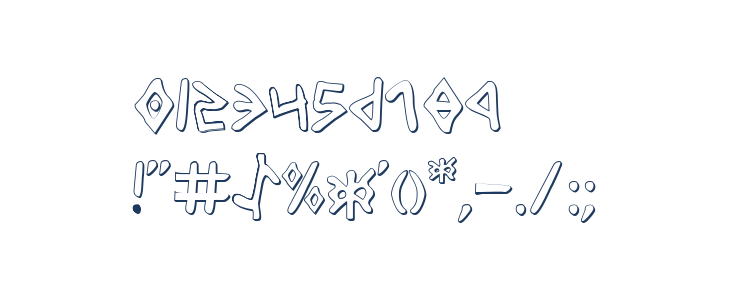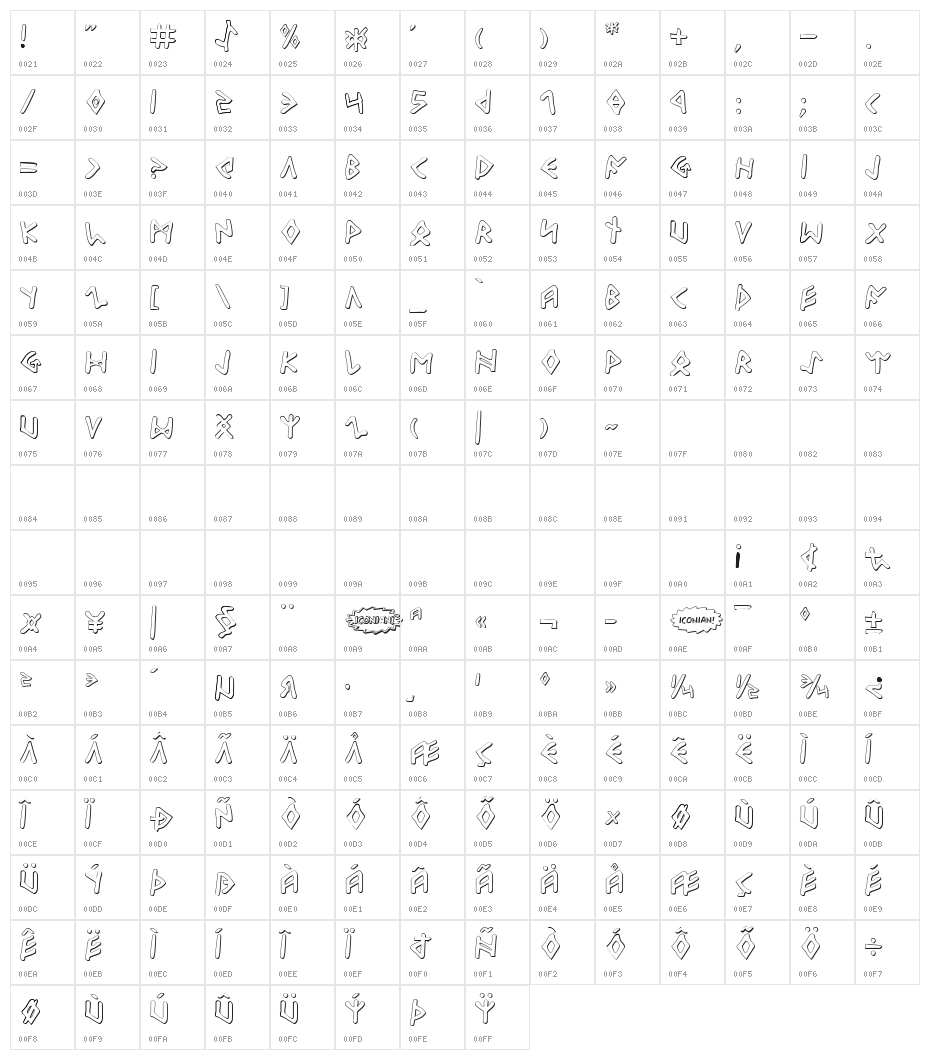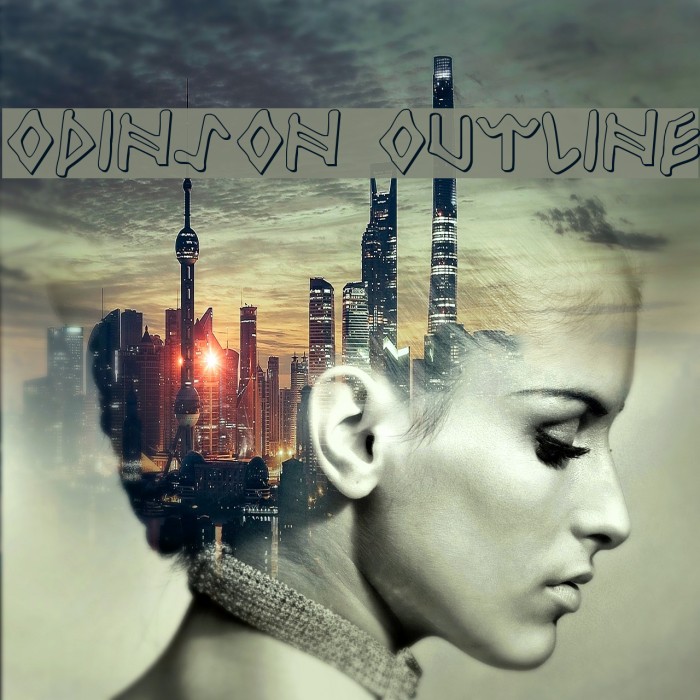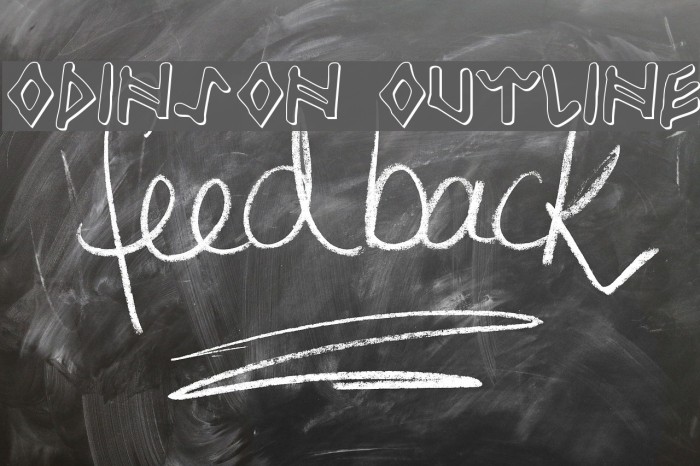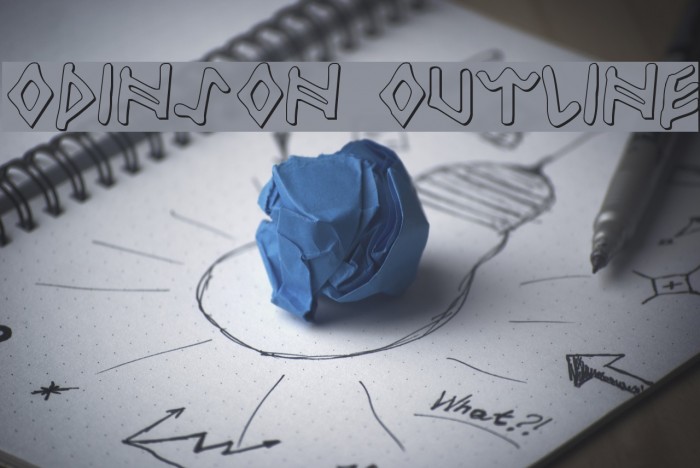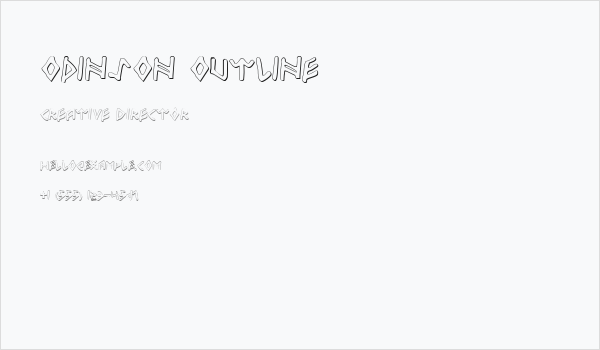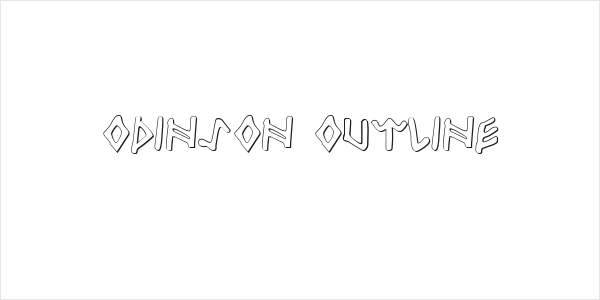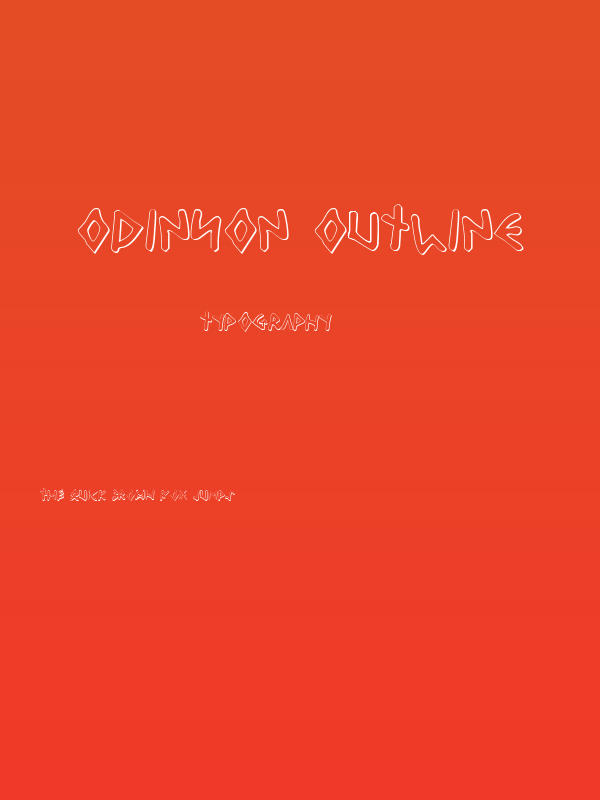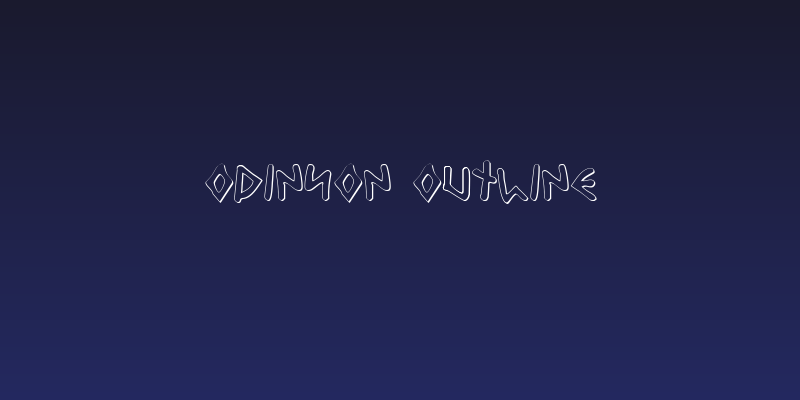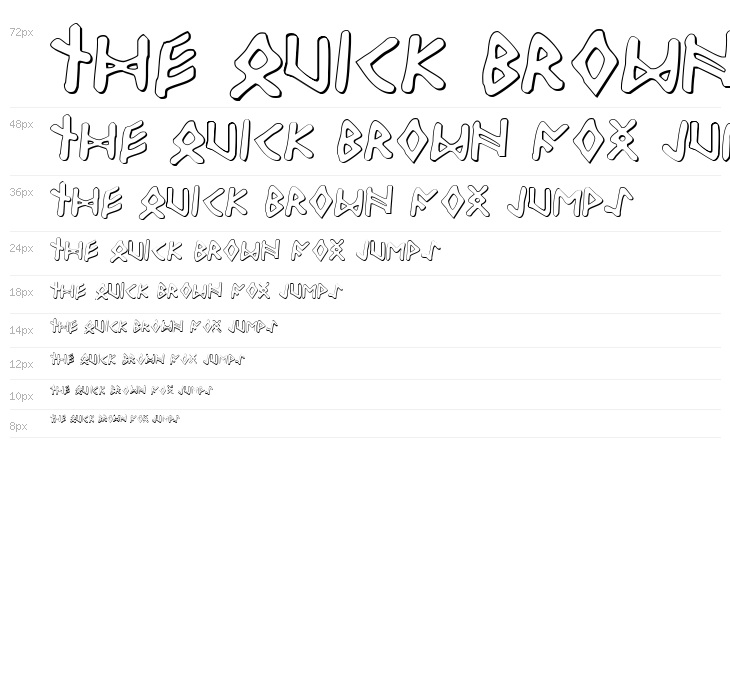
Odinson Outline Font
Odinson Outline Description
This font features a bold and striking outline style, reminiscent of ancient runic inscriptions. The characters are uniquely angular and geometric, creating a sense of strength and mystery. Each letter is outlined, giving it a three-dimensional appearance that stands out on any page. The uppercase and lowercase letters maintain a consistent style, with sharp edges and a slightly condensed form. Numbers and special characters are designed to match the overall aesthetic, ensuring a cohesive look across all text. This font is ideal for projects that require a touch of the mythical or legendary, offering a distinctive and memorable visual impact.
| Proposed Projects | Ideal for fantasy book covers, game titles, movie posters, and themed event invitations. |